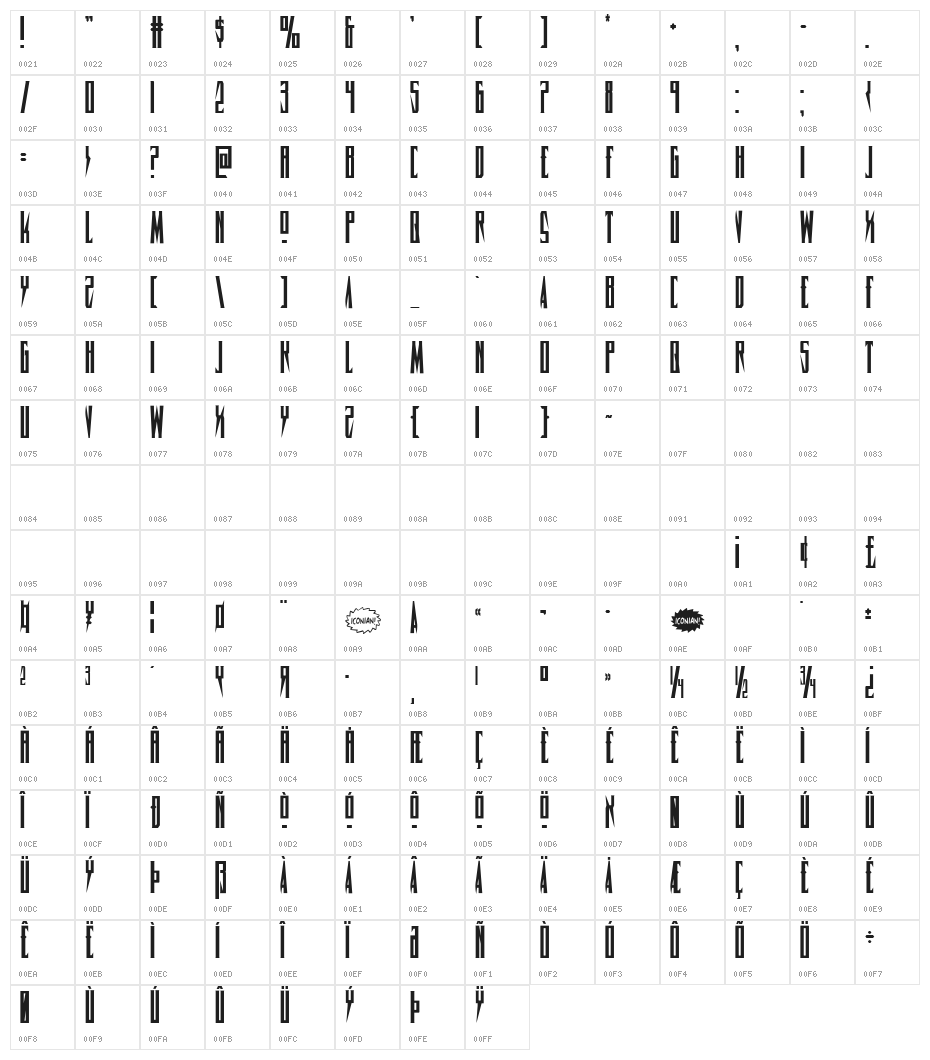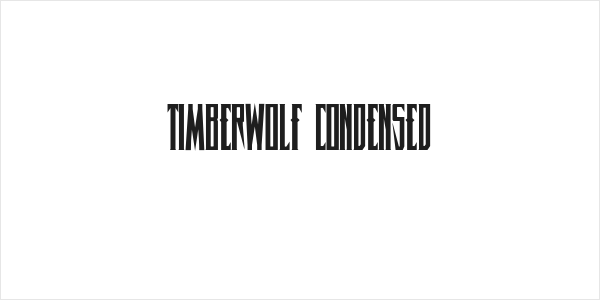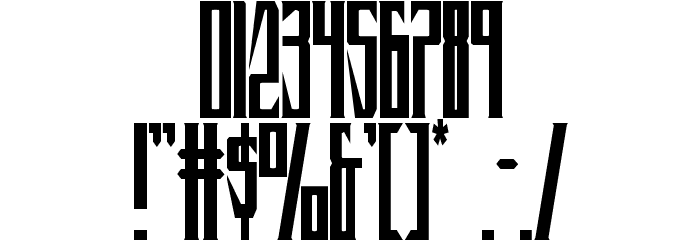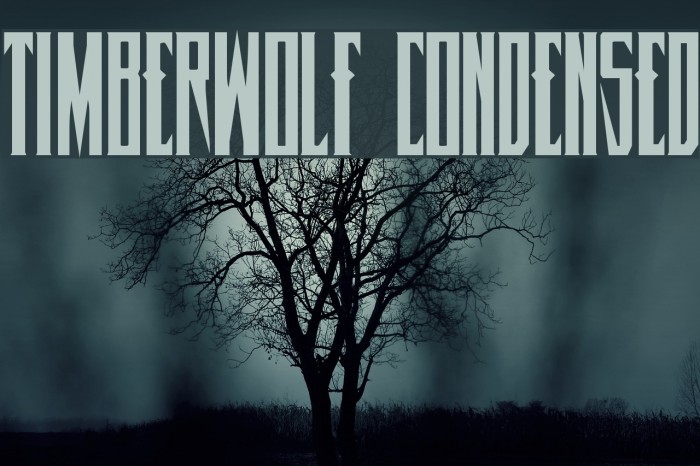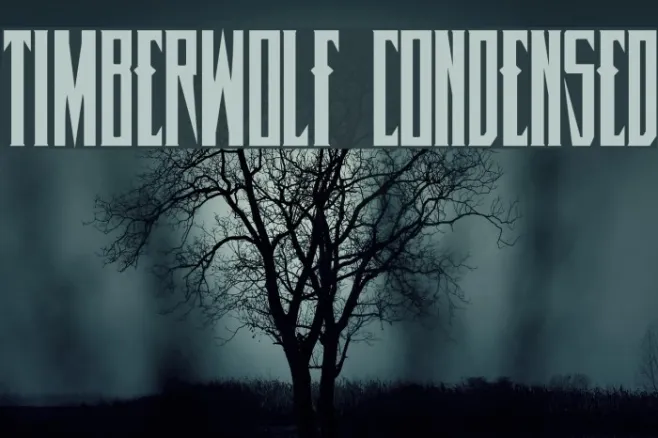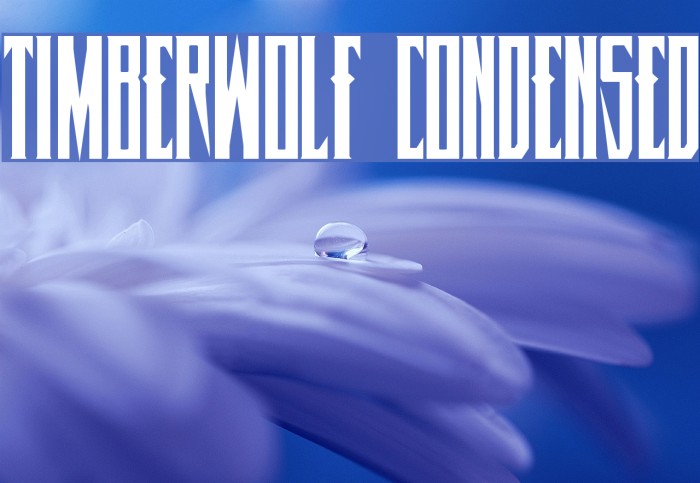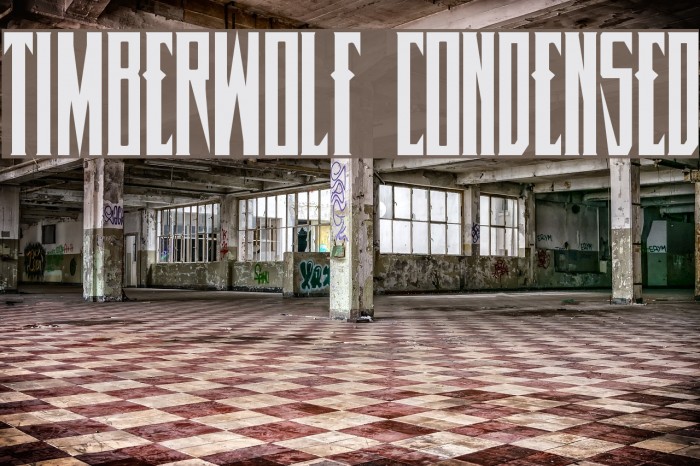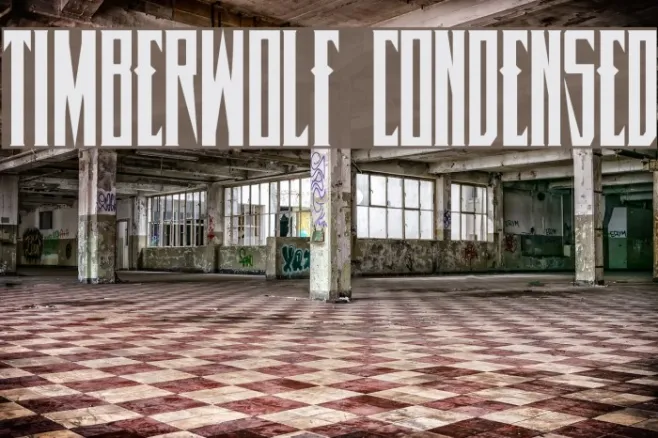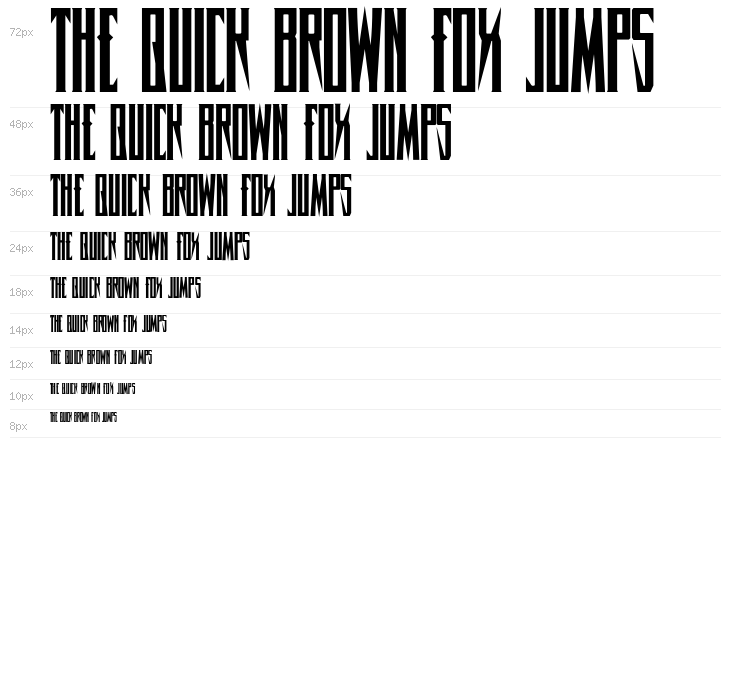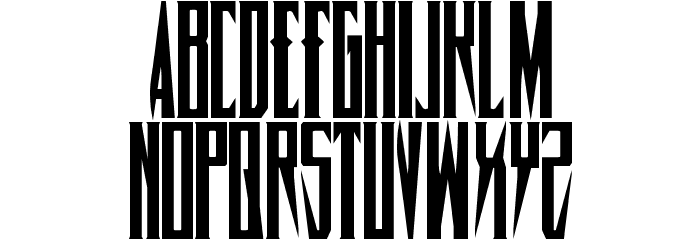
Timberwolf Condensed Font
Timberwolf Condensed Description
This font features a striking, condensed design with tall, narrow characters that create a bold and impactful visual presence. The angular and geometric shapes give it a modern and edgy feel, making it stand out in any design. The uppercase and lowercase letters maintain a consistent height, enhancing the uniformity and sleekness of the typeface. The numbers and special characters follow the same condensed style, ensuring a cohesive look across all text elements. Its unique style is perfect for projects that require a strong and memorable typographic statement.
| Proposed Projects | Ideal for posters, album covers, branding, and any project needing a strong visual impact. |